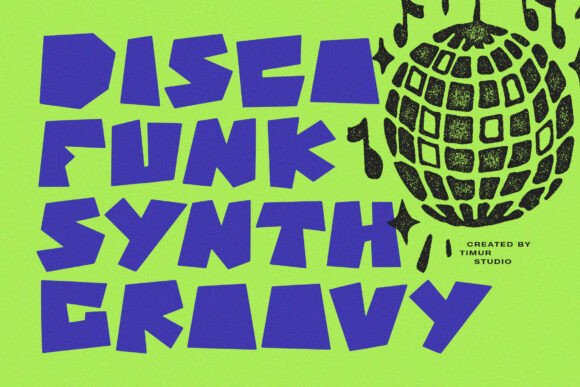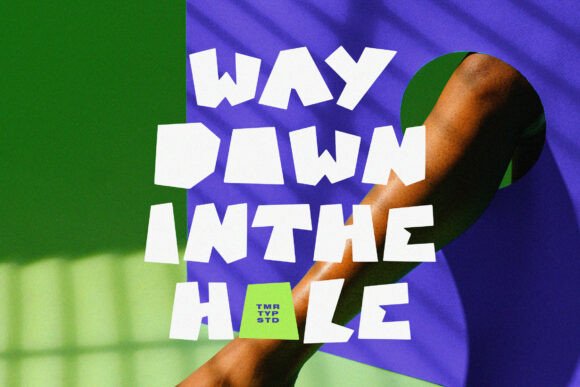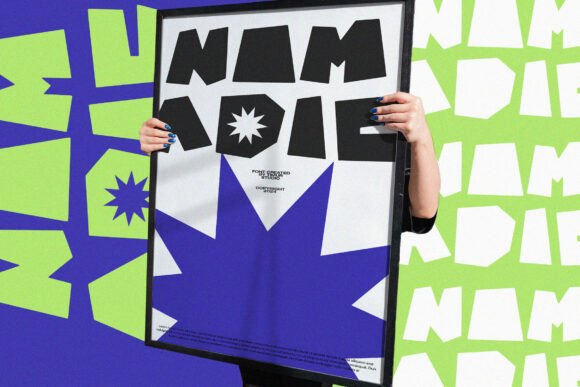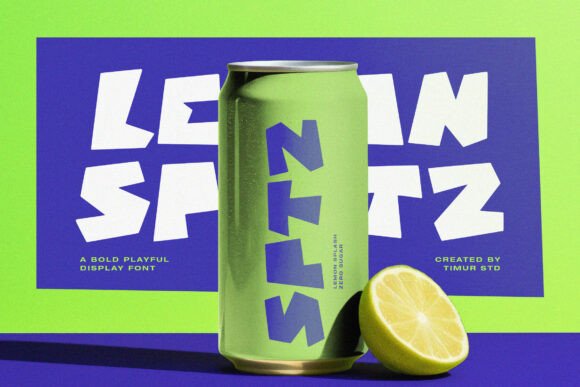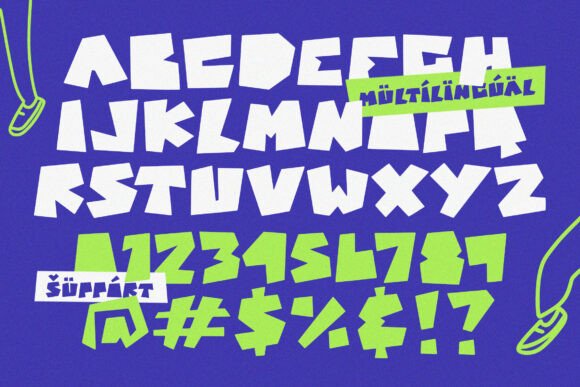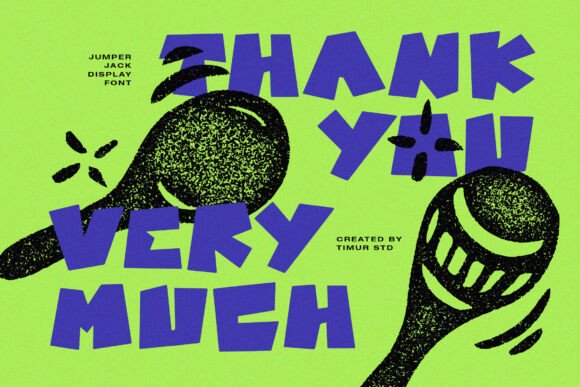
Introduction to Jumper Jack Font
Have you ever been brainstorming ideas for a creative project, only to be struck by a spark of inspiration that just won’t quit? That’s exactly what happened to us when we stumbled upon the Jumper Jack Font – a bold and playful display font that exudes energy and charm. Its quirky, dynamic letterforms and lively character make it the perfect addition to any eye-catching design.
As designers, we’re always on the lookout for unique and versatile design resources that can elevate our work. The Jumper Jack Font fits the bill perfectly, offering a fun and energetic vibe that’s sure to capture attention. Whether you’re working on a poster, logo, packaging, or children’s project, this font is sure to be a game-changer. And the best part? It’s available for free download, making it a valuable addition to any design arsenal.
With its transparent background and high-quality design, the Jumper Jack Font is a must-have resource for any creative project. So why settle for a generic font when you can add a little extra flair to your design with this fantastic display font?
Key Features of Jumper Jack Font
- Unique, hand-drawn design ideal for creative projects requiring a playful touch.
- Designed to be highly legible in various resolutions, making it suitable for a range of applications, from small graphics to large-scale signage.
- Perfect for use in children’s books, educational materials, and other projects requiring a fun and engaging tone.
Honest Review: Jumper Jack Font
I recently had the chance to work with the Jumper Jack Font, and I must say it was a delightful experience. As a designer, I’m always on the lookout for high-quality design resources that can elevate my creative projects. The Jumper Jack Font definitely fits the bill.
- ✨ High-quality design: The font is crisp and clean, making it perfect for use in a variety of contexts.
- ✨ Transparent background: The font comes with a transparent background, giving me the flexibility to use it with any background image or color.
However, I did encounter a few limitations. The Jumper Jack Font is a bit limited in terms of font sizes and styles, which can make it less versatile than some other fonts I’ve worked with.
- ⚠️ Limited font sizes and styles: While the font is high-quality, it’s not as customizable as I’d like.
- ⚠️ Not ideal for large-scale projects: Due to its limitations, I wouldn’t recommend using the Jumper Jack Font for large-scale projects that require a lot of customization.
Overall, I’m impressed with the Jumper Jack Font, and I would definitely recommend it to designers looking for a high-quality, free font for their creative projects. Just be aware of its limitations, and use it accordingly.
Jumper Jack Font is a versatile design resource that can be used in a variety of creative projects, from graphic design to digital art. Its unique style and high quality make it an excellent choice for designers looking to add a touch of personality to their work.
Transparent Background and High-Quality Images
When using Jumper Jack Font, make sure to use a transparent background to ensure seamless integration with your design. Additionally, use high-quality images to maximize the font’s visual impact.
Common Use Cases for Jumper Jack Font
Jumper Jack Font is ideal for use in a variety of creative projects, including:
Graphic design: Use Jumper Jack Font to create eye-catching graphics and logos.
Digital art: Experiment with Jumper Jack Font in digital art projects, such as illustrations and animations.
Web design: Use Jumper Jack Font in web design projects to add a touch of personality to your website.
Tips for Getting the Most Out of Jumper Jack Font
To get the most out of Jumper Jack Font, experiment with different font sizes, colors, and combinations to find the perfect look for your project.